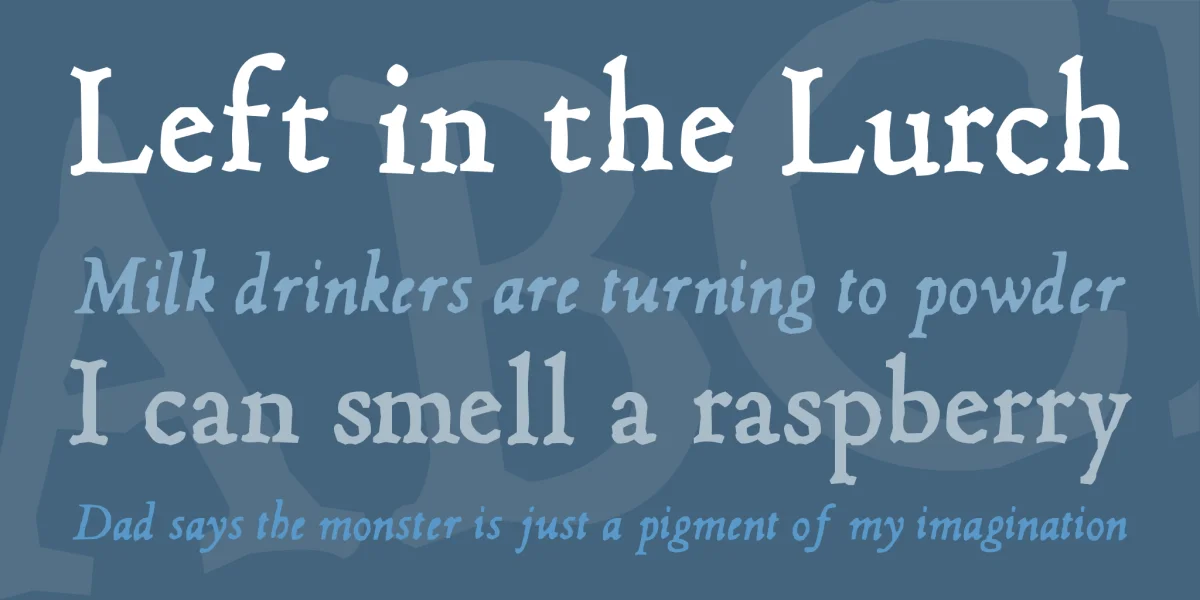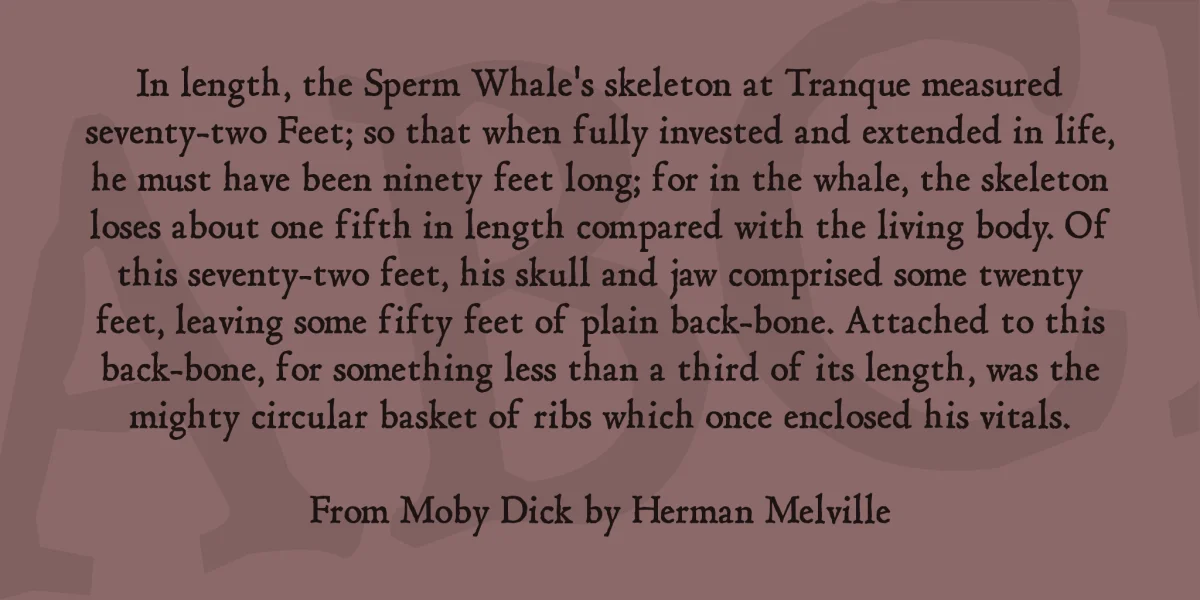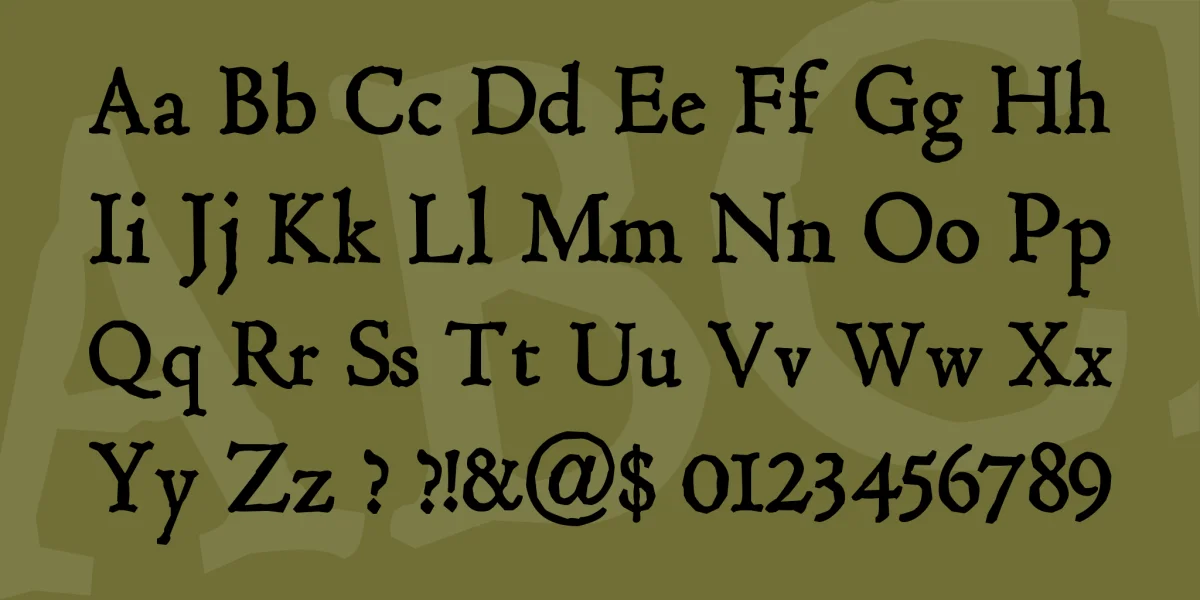
This font, "Hultog," is a simple "antiqued" font based on some classic Venetian-style typefaces (or rather, what happened to them once I munged them rather a lot in bitmap form and then scanned them back into a font). The goal was to create a simple antique font that wasn't quite as munged as most others, something that might be suitable for long stretches of text, if need be.
Hultog was around for a couple of years without an Italic version. I never needed one in the original project I designed Hultog for, and in those days I wasn't sure I knew how to go about it, anyway. Folks enjoyed the font anyway, though, and one publisher even used it as the body font for an entire book (I don't actually _recommend_ this, but it was flattering)!
As of then, I promised myself I'd get around to doing a proper italic version (seeing machine-tiled pseudoitalics throughout that book was embarassing), and this set includes that promised expansion, with both Hultog and Hultog Italic. Both sets are extensively hand-kerned, as well; be sure and use them in an application that supports kerning.